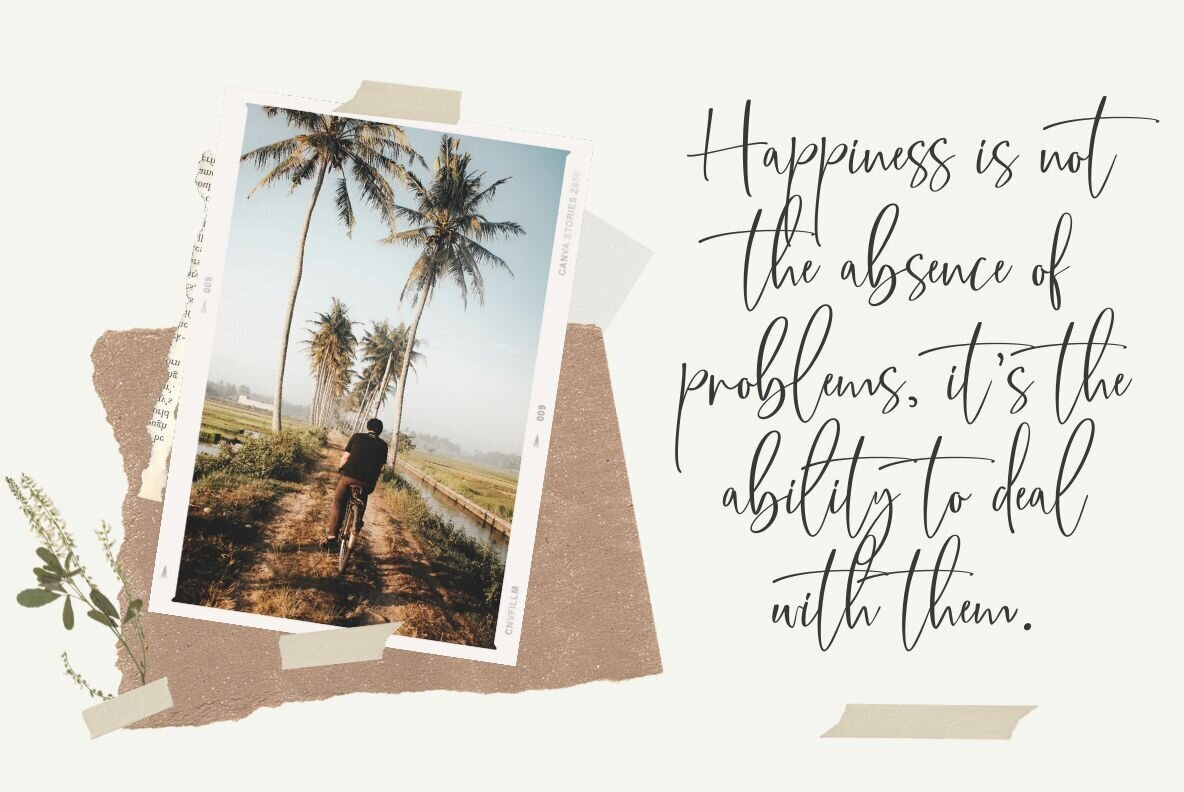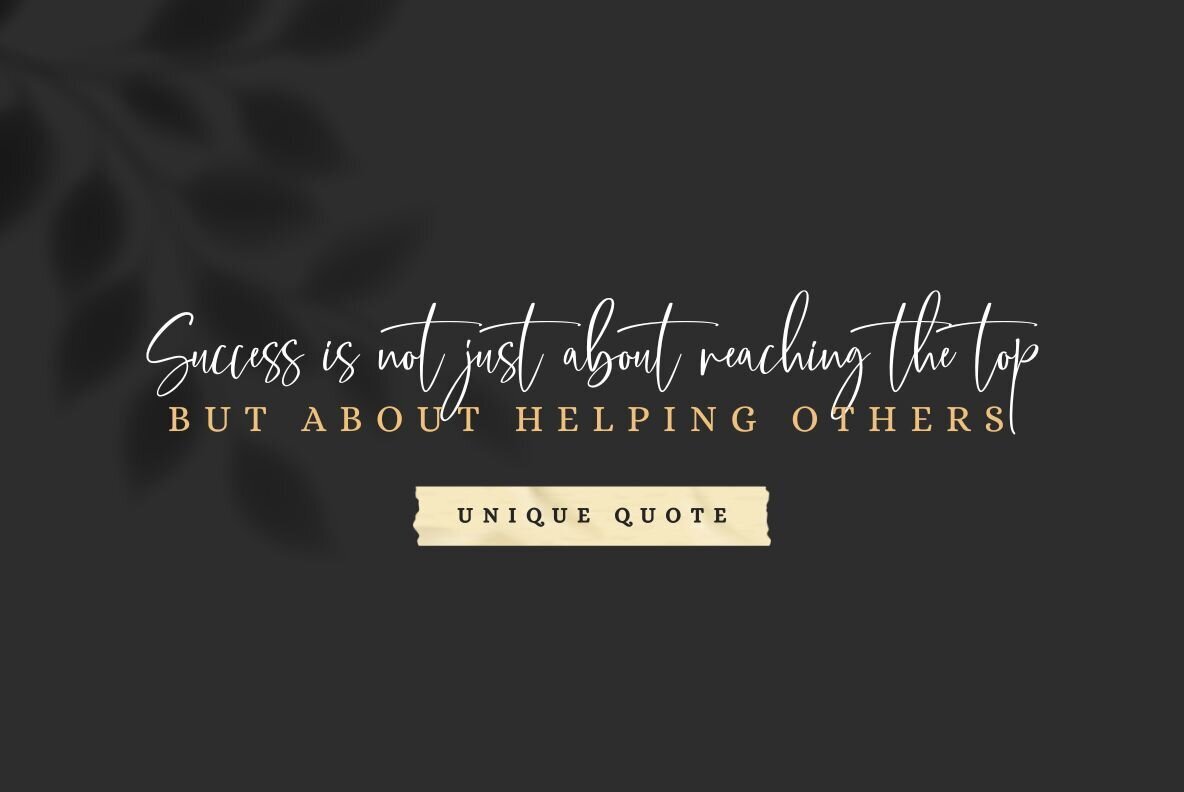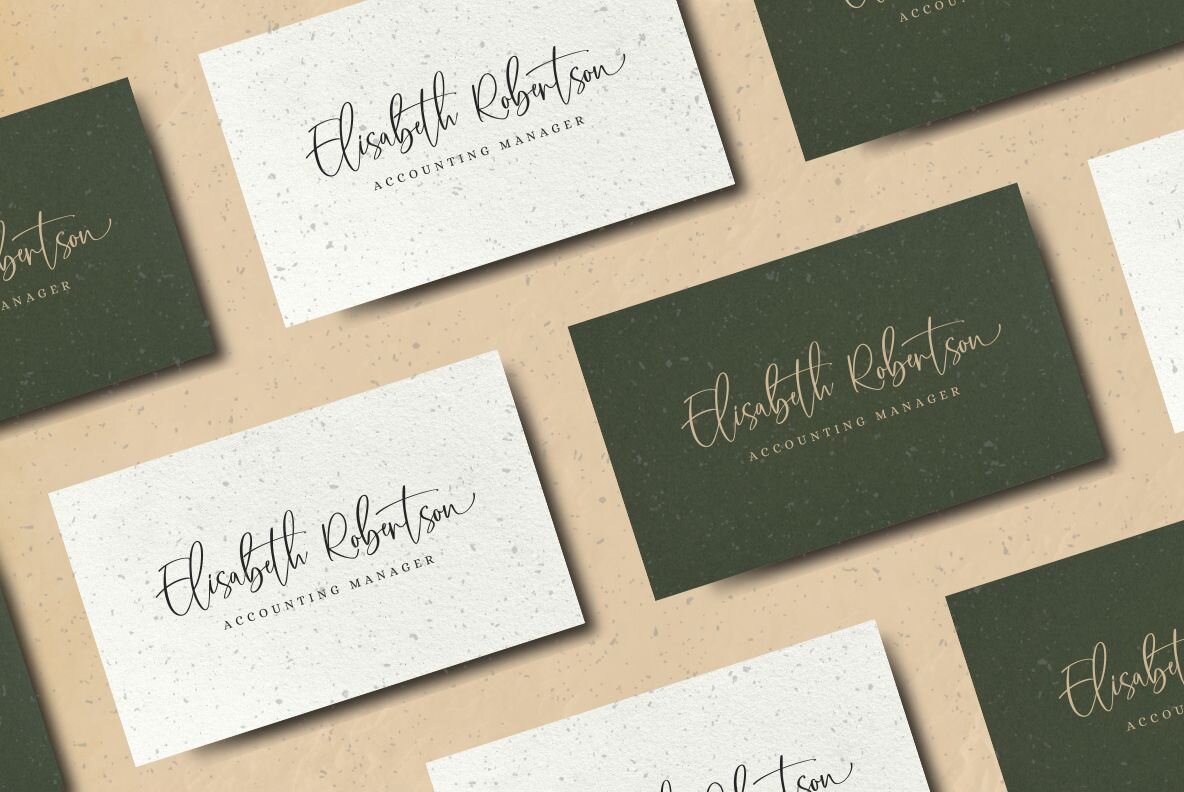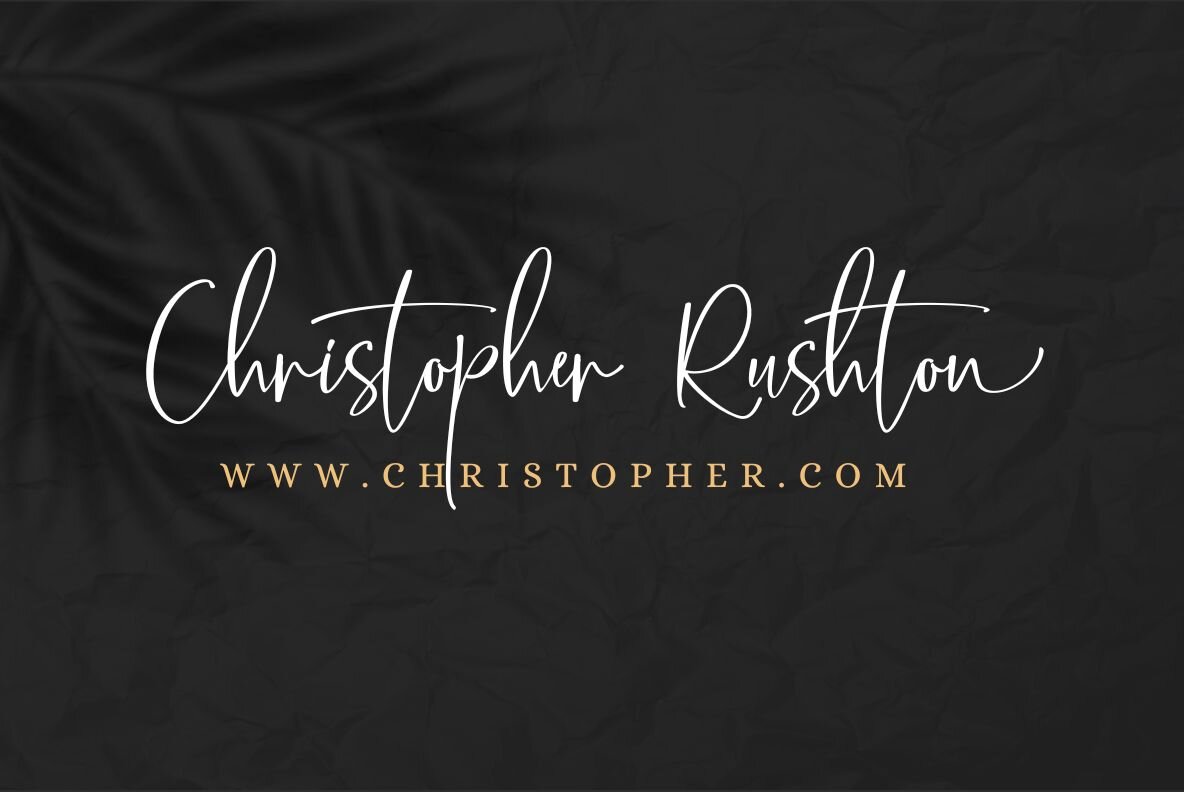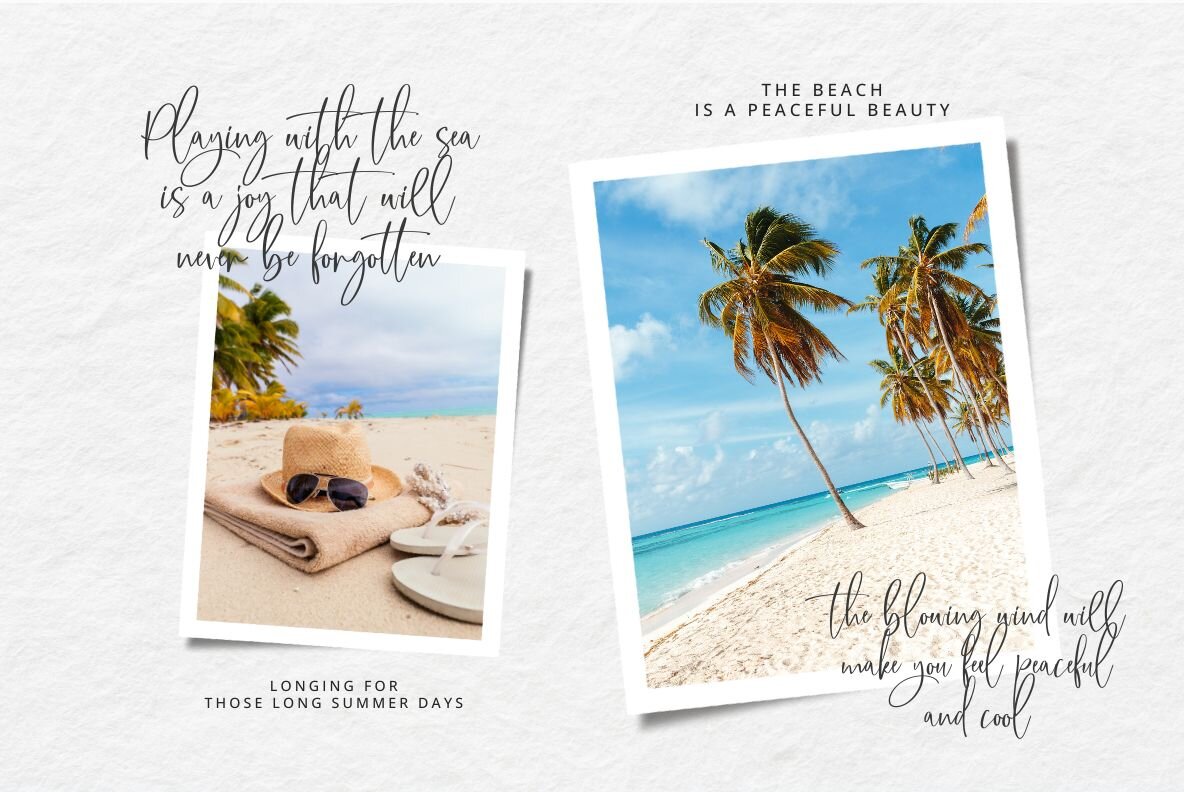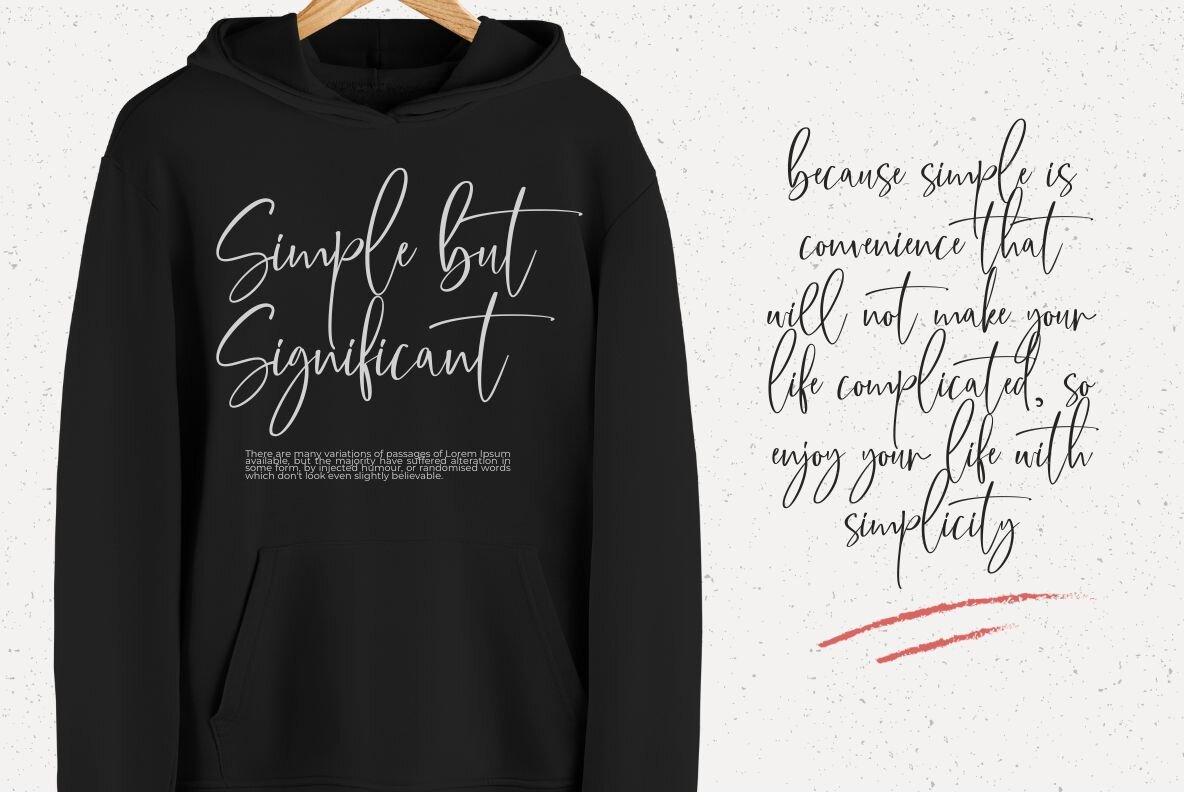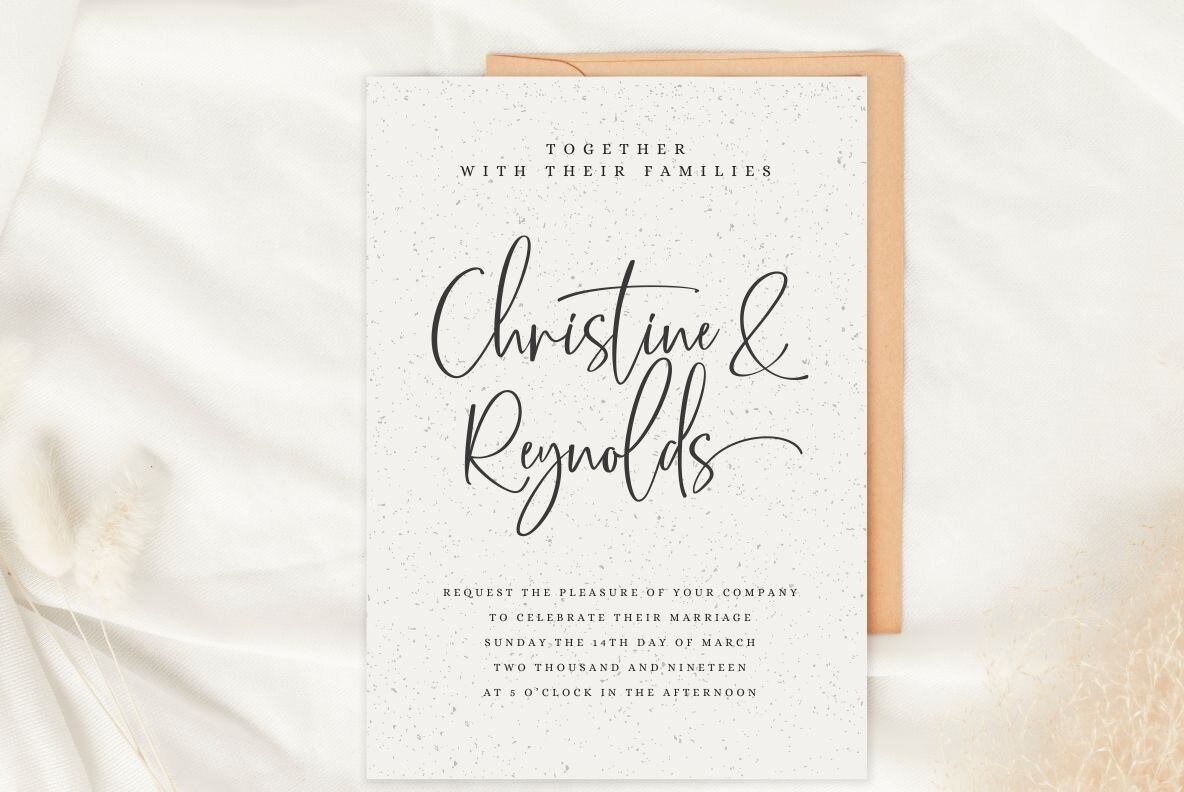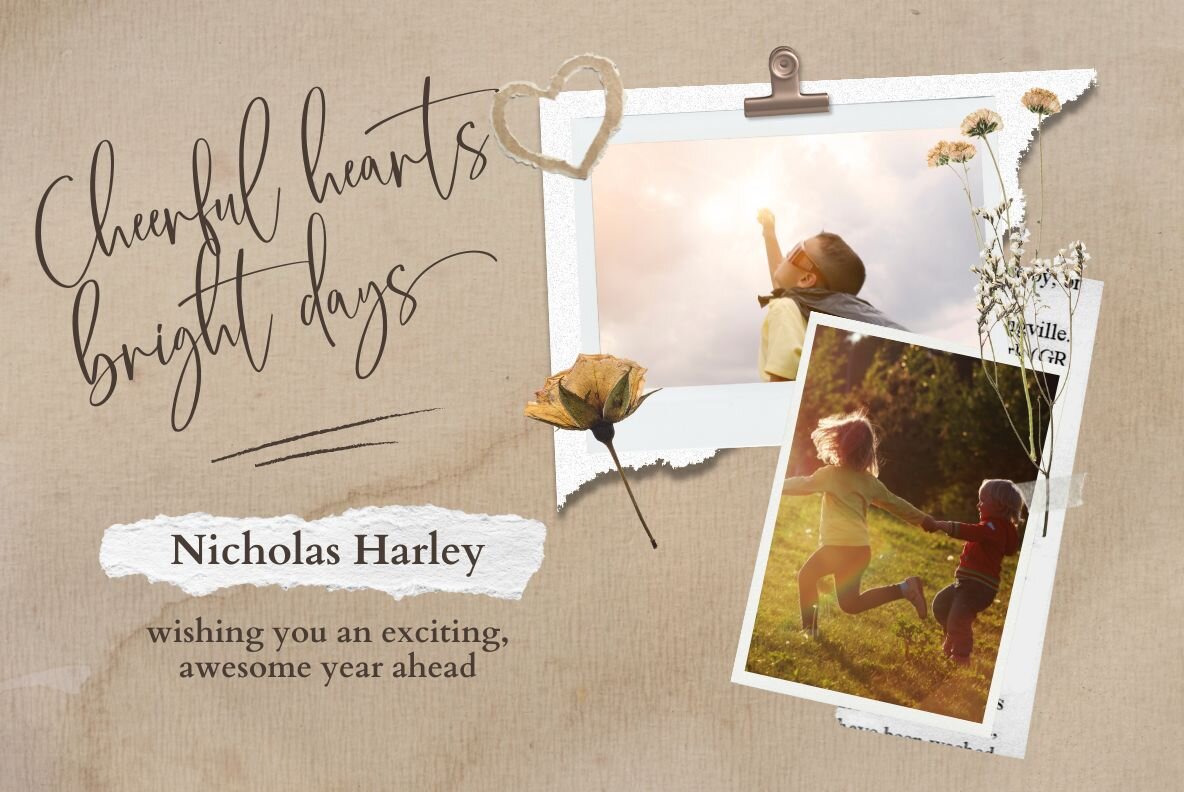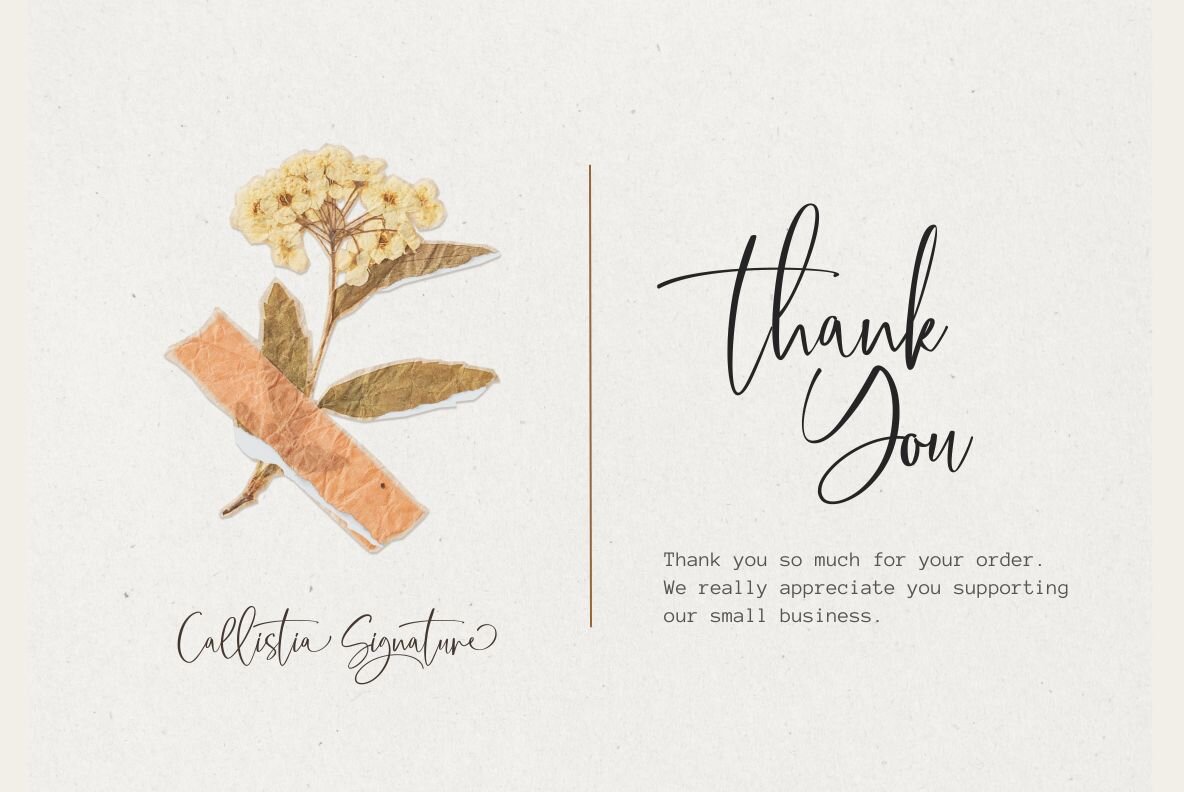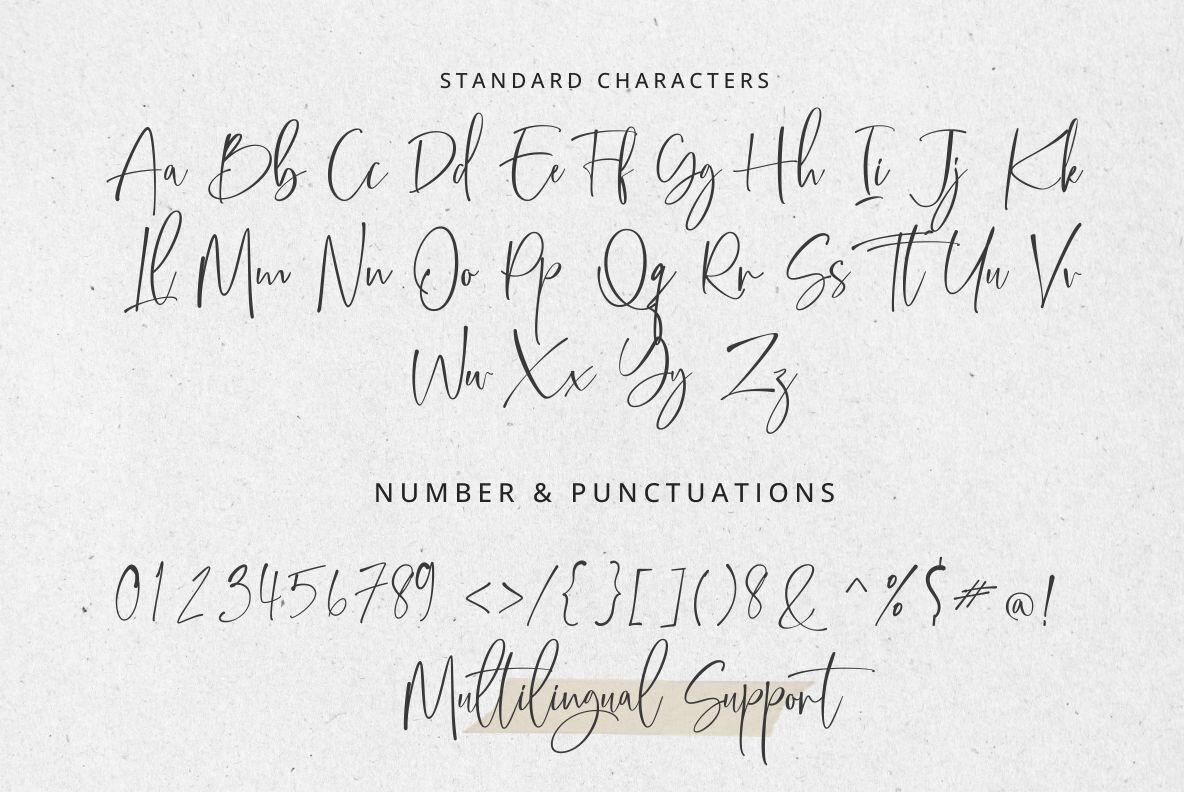
Callistia Signature Font
Callistia Signature
Introducing our new font “Callistia Signature” it is a very unique handwriting font, with beautiful curves making this font pleasant to look at, especially when you apply it to your design, it will look beautiful and aesthetic. This font is very suitable for you to use in designs, such as quote makers, digital invitations, and for printing on shirts, jackets, and other clothing, you can also use it for greeting cards, ID cards, and others. This font has unique alternates and ligatures, making your designs even more attractive and aesthetic. Apart from that, this font also supports multilingual in up to 90 languages.